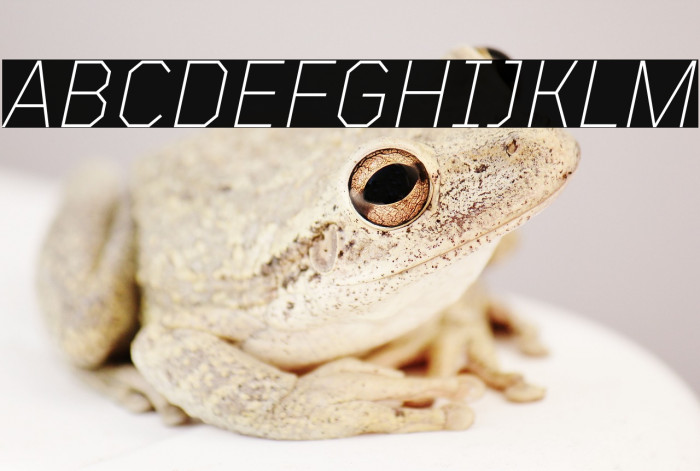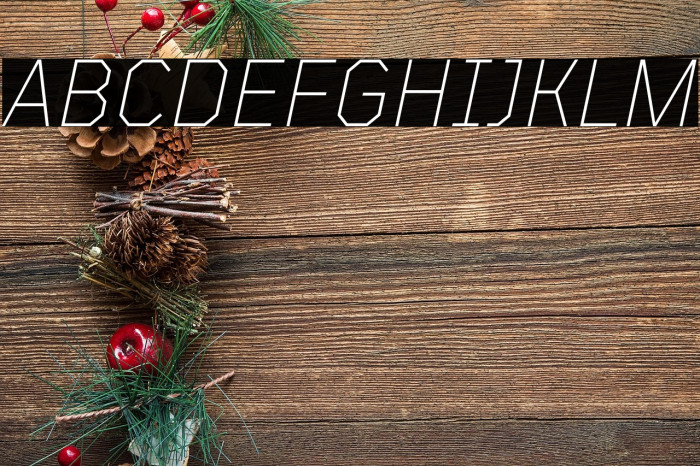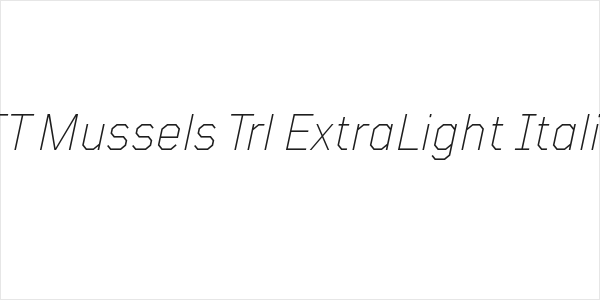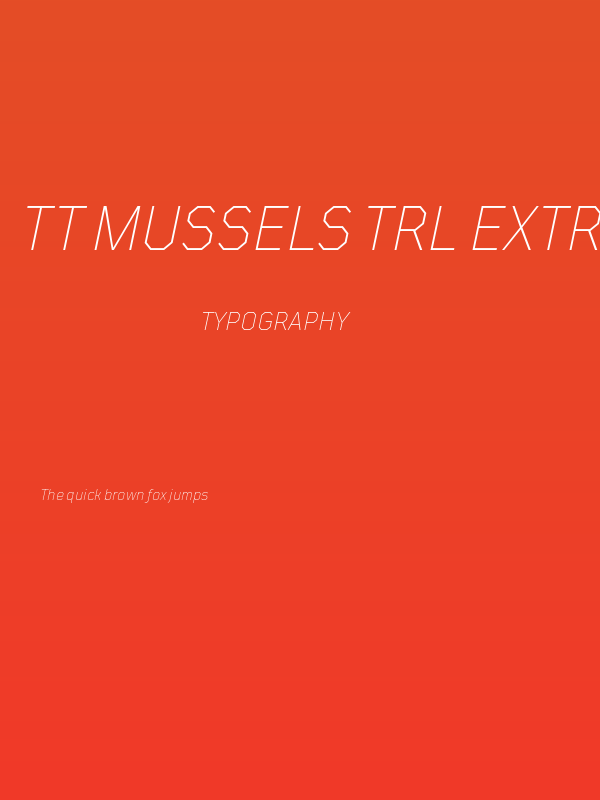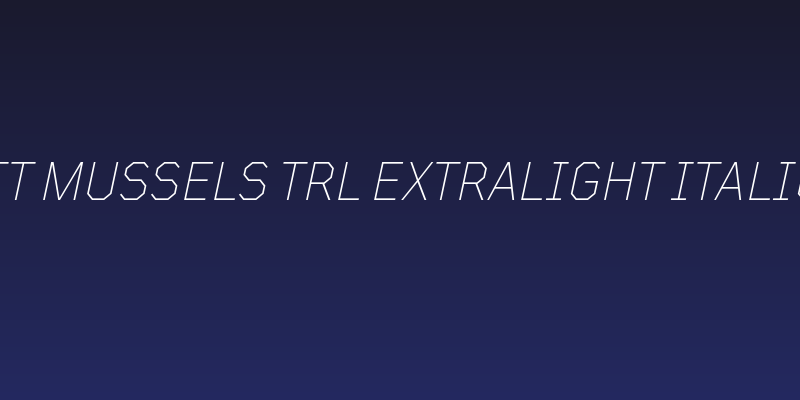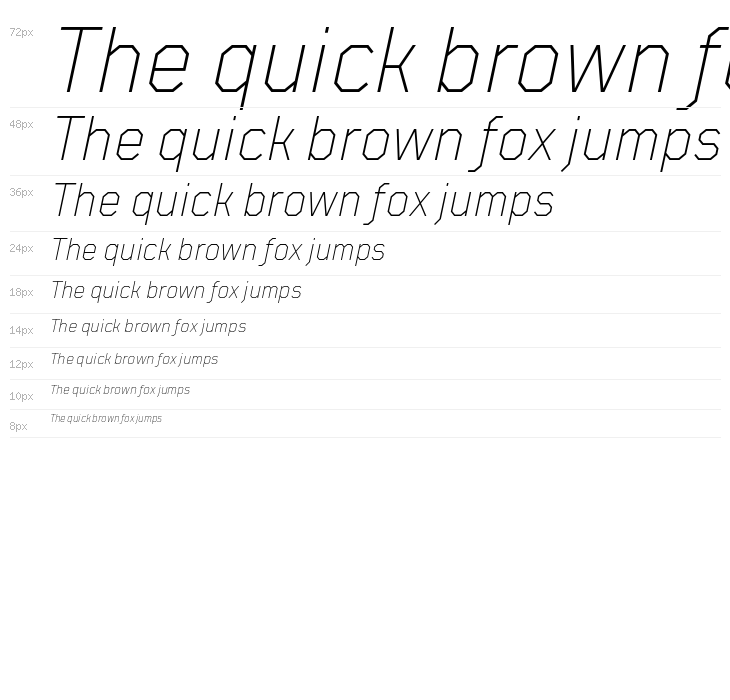
TT Mussels Trl ExtraLight Italic Font
TT Mussels Trl ExtraLight Italic Description
This font features a sleek and modern design with a geometric structure. The characters are crafted with a consistent slant, giving it an italicized appearance. The strokes are thin, contributing to an overall light and airy feel. Each letter is distinct, with sharp angles and clean lines, making it highly legible. The spacing between characters is balanced, ensuring readability while maintaining a stylish look. This font is versatile, suitable for both digital and print media, and can be used to add a contemporary touch to any project.
| Use Case | Headlines, Logos, Editorials |
| Proposed Projects | Ideal for modern branding, tech-related designs, minimalist posters, and sleek editorial layouts. |